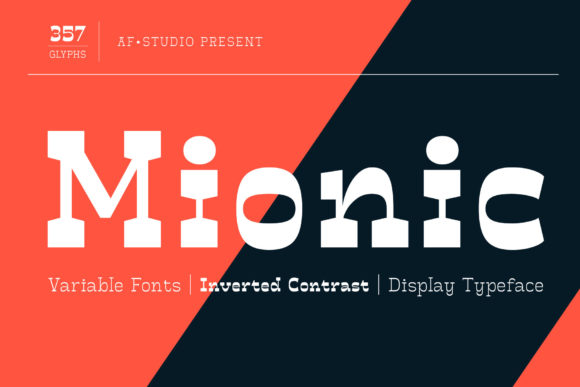
**Indulge in the Enchanting World of Mionic: A Cinematic Font for Visionaries**
Unleash the unbridled spirit of the Wild West with Mionic, a spellbinding display font that evokes the allure of classic cinematic posters and captures the essence of untamed frontiers. Crafted by the visionary Adam Fathony, Mionic embodies the ruggedness of the Old West while embracing the boundless possibilities of modern design.
Prepare to be captivated by its bold strokes and captivating curves, which dance across the screen like whispers from the silver screen. Mionic's charismatic persona makes it the perfect companion for web designs, business cards, and any creative endeavor that yearns for a touch of cinematic magic.
Whether you're a designer seeking to ignite the imaginations of your audience or a storyteller longing to transport readers to distant lands, Mionic holds the key to unlocking the gates of visual enchantment. Its versatility knows no bounds, empowering you to craft designs that resonate with timeless appeal and leave an indelible mark on the hearts of your viewers.
Join the ranks of creative visionaries who have embraced the allure of Mionic. Let its cinematic soul guide your designs towards extraordinary heights, where imagination knows no limits and every creation becomes a masterpiece worthy of the silver screen.